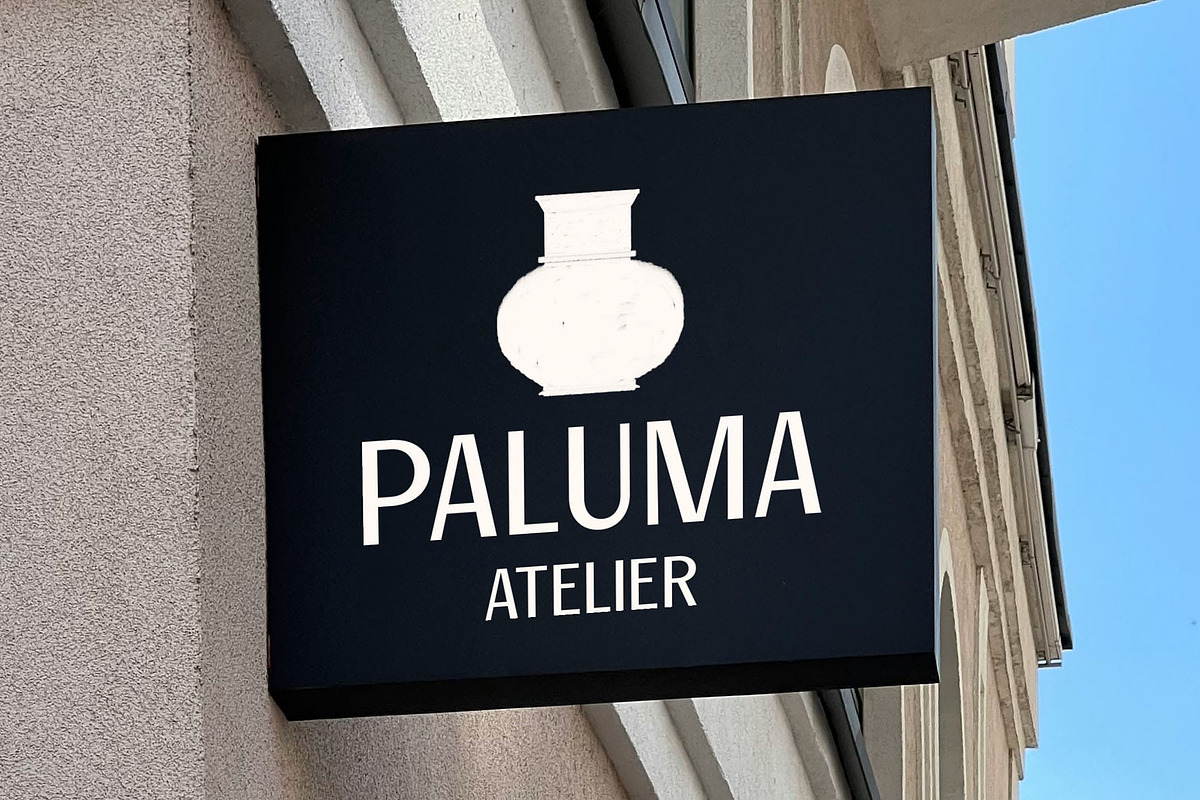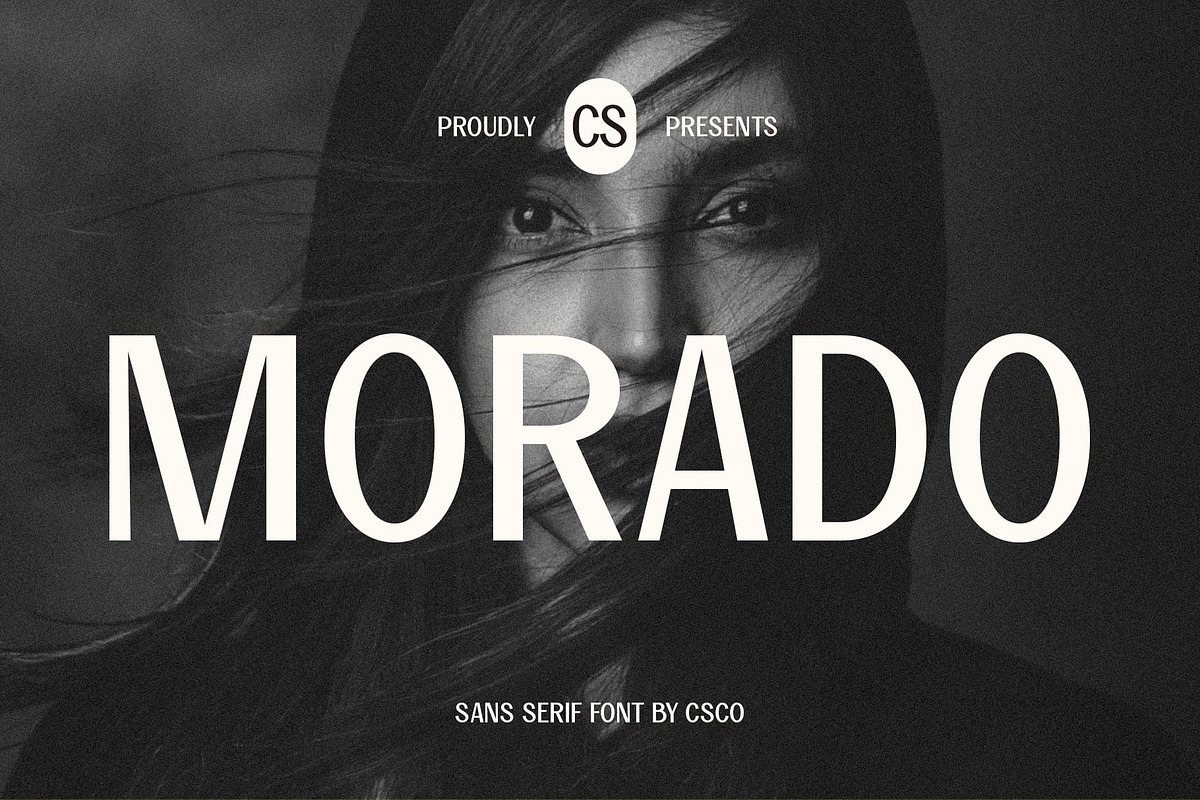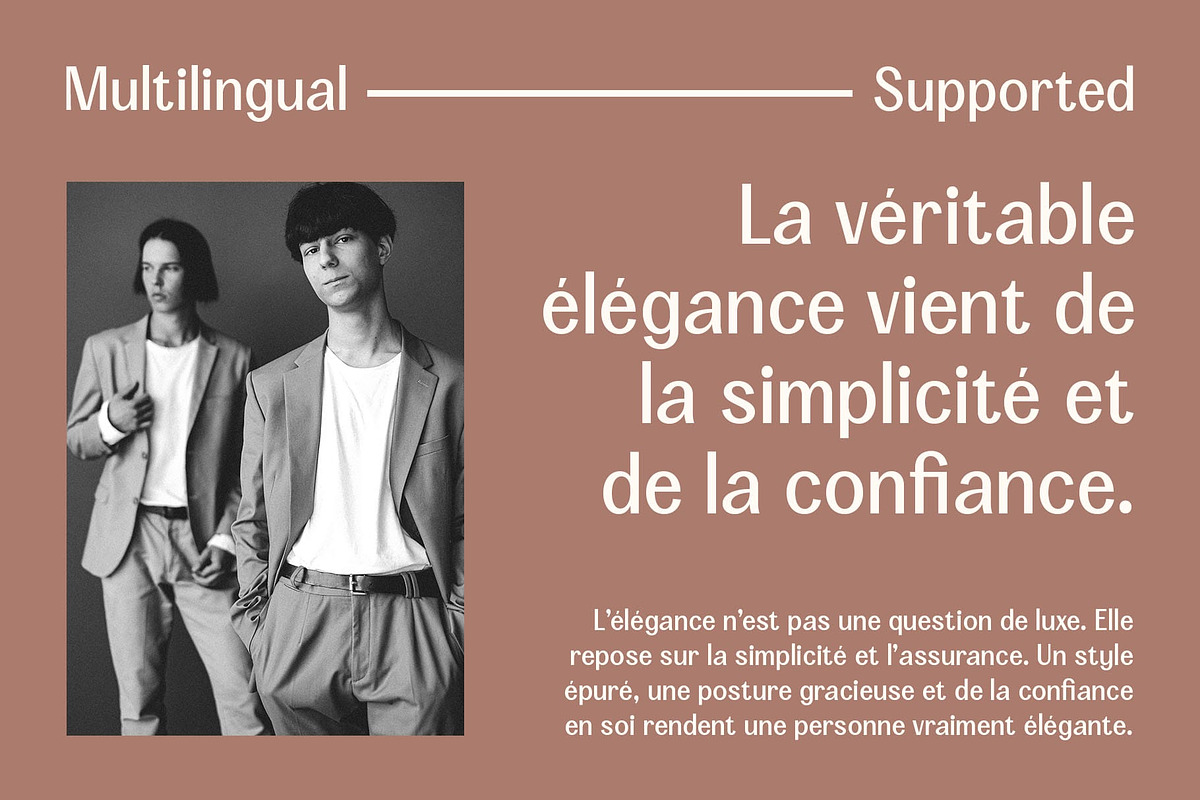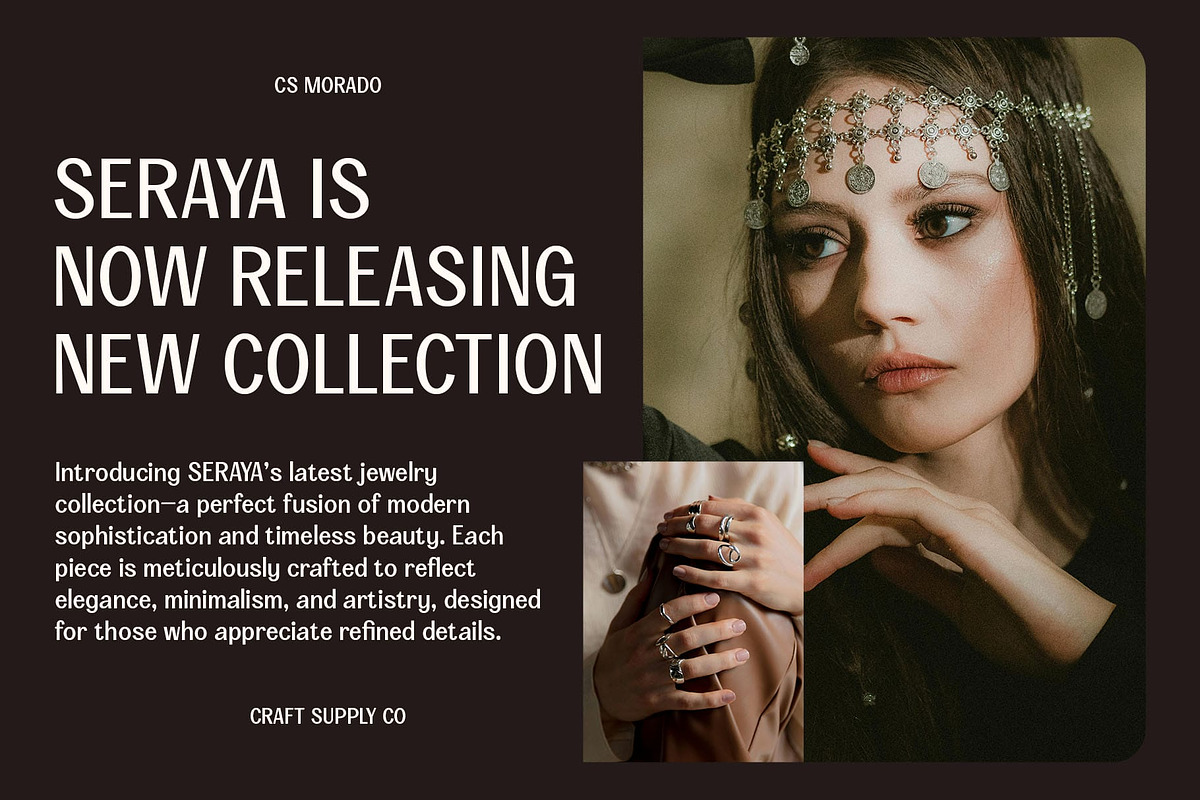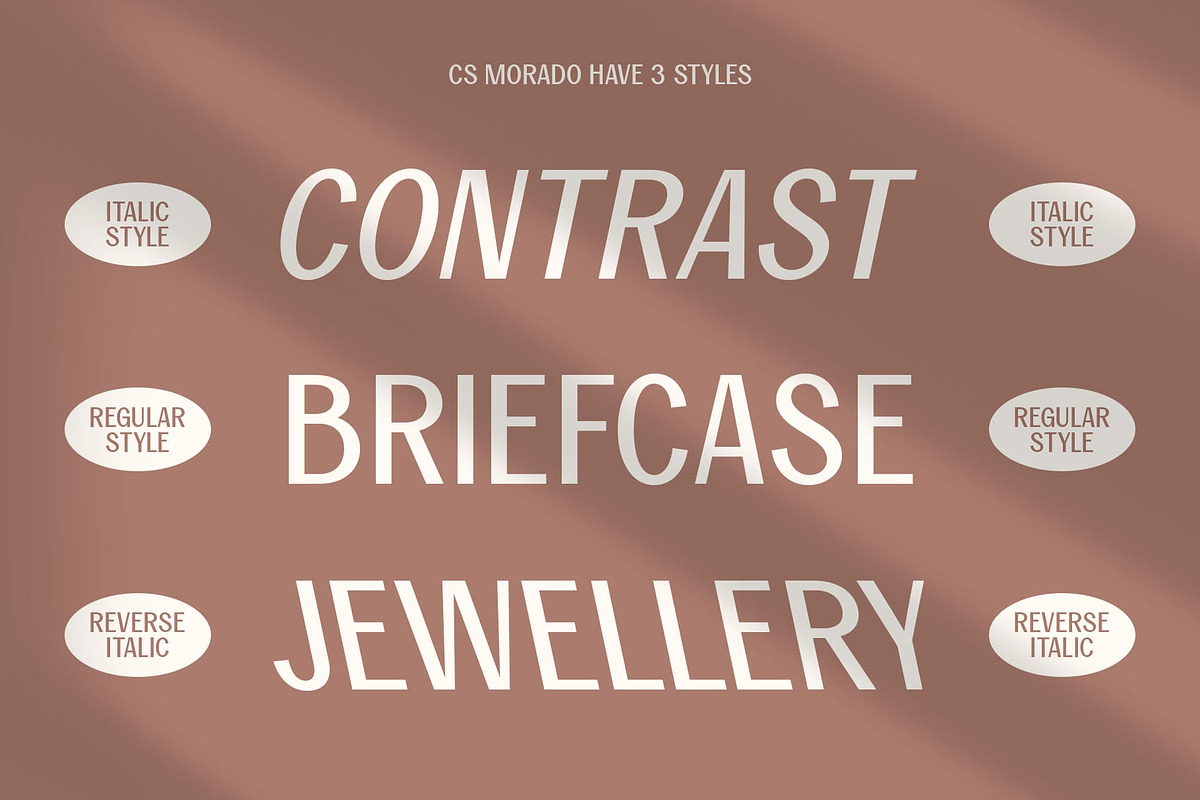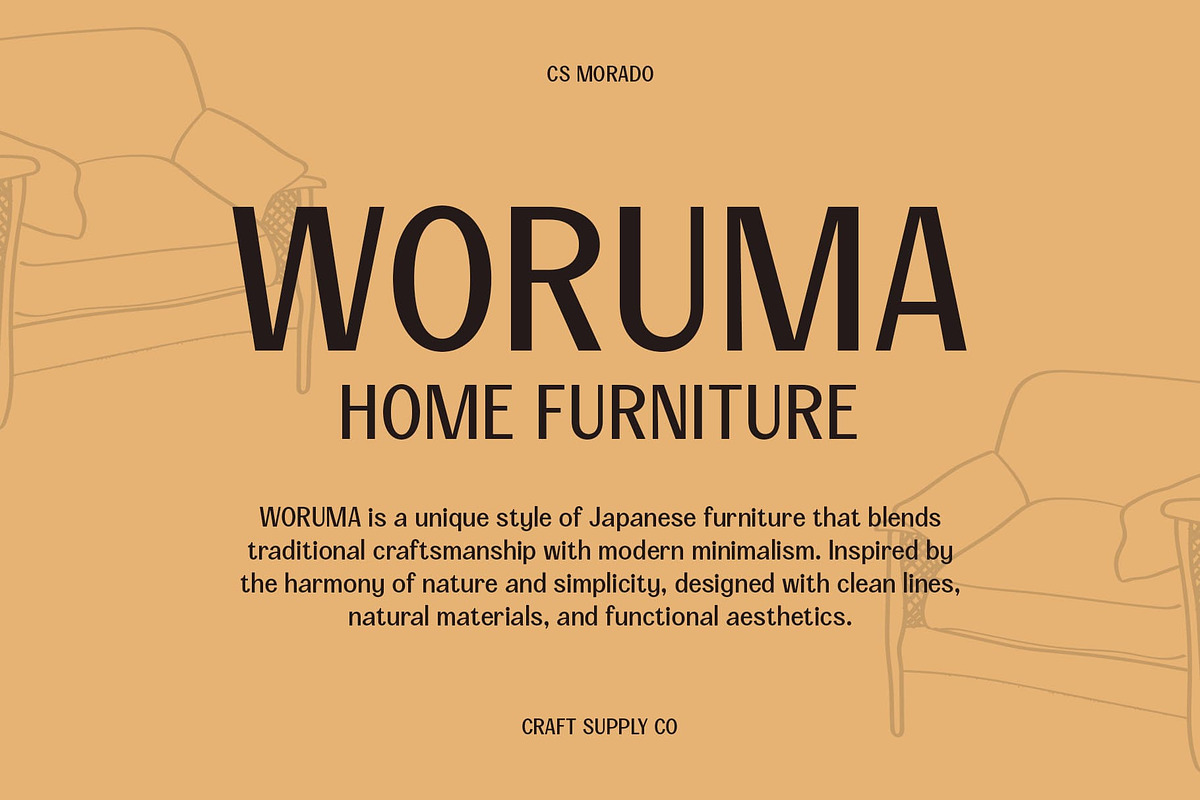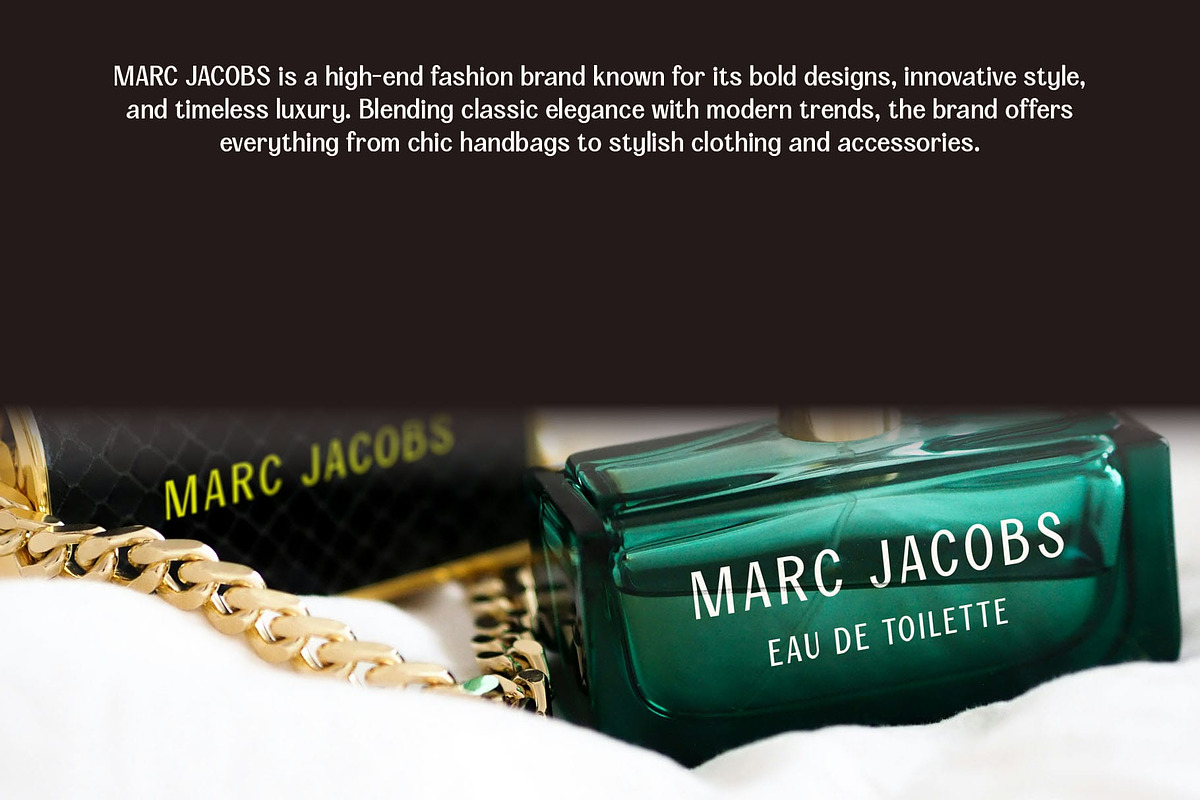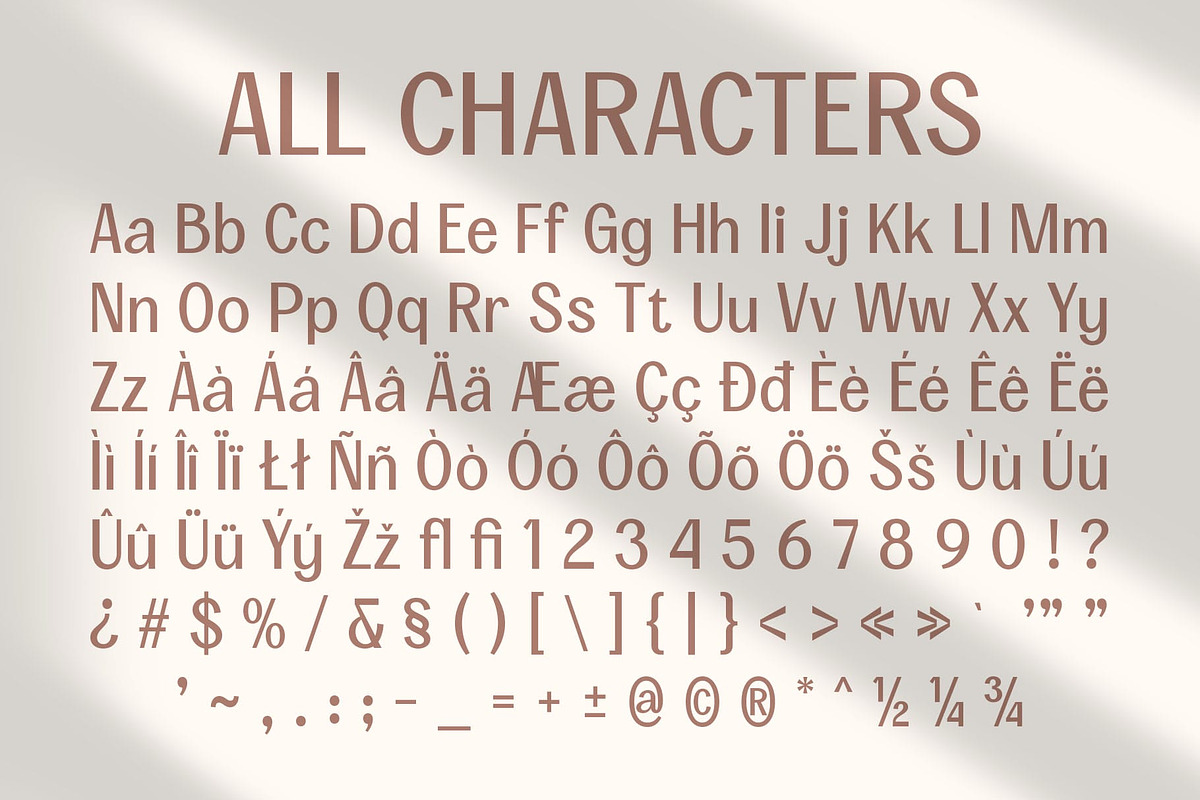
CS Morado – Contemporary Font
CS Morado – Contemporary Font: A Perfect Blend of Simplicity and Elegance
A Sleek and Modern Sans-Serif CS Morado is a modern sans-serif font designed with clean lines, geometric precision, and a minimalist aesthetic. Its sleek and refined structure provides a professional yet approachable look, making it an excellent choice for branding, corporate identities, UI/UX design, and editorial layouts.
Balanced Proportions for Maximum Readability Featuring harmonized letterforms and well-proportioned spacing, CS Morado ensures exceptional readability in both digital and print media. Its smooth edges and uniform stroke width create a sense of clarity and sophistication, making it suitable for body text, headlines, and logo design.
A Versatile Typeface for Professional Applications With its subtle elegance and modern appeal, CS Morado seamlessly fits into a variety of design projects, from corporate presentations and packaging to website interfaces and advertising materials. Its timeless and stylish characteristics allow it to complement contemporary design trends effortlessly.
Minimalist Design with a Touch of Refinement CS Morado’s geometric yet soft detailing strikes a balance between modern minimalism and subtle sophistication. Whether used in luxury branding, digital marketing, or high-end publications, this font offers a polished and contemporary touch that enhances the overall visual impact of any project.
- CS Morado Regular
- CS Morado Italic
- CS Morado Reverse Italic